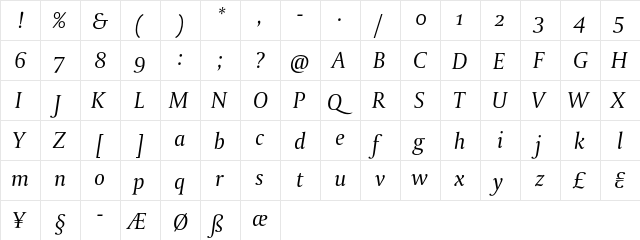
Capitolium RegularItalicOsf
Design Context for Capitolium Typeface
Capitolium is a composed and adaptable typeface that performs quietly and consistently across a wide range of design contexts. The dynamic lean of this cut emphasises speed and emphasis in any layout.
Pro Tip: Use Capitolium for emphasis, pull quotes, and subheadings where its slanted energy can add rhythm to the layout.